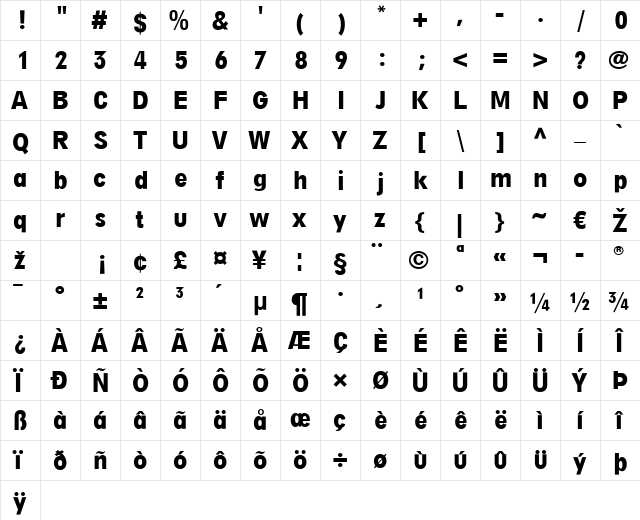
DigiGrotesk LT BoldCondensed Regular Font Preview
Design Context for DigiGrotesk LT BoldCondensed Typeface
DigiGrotesk LT BoldCondensed takes a clean, functional approach — its unadorned letterforms prioritise legibility and work reliably across screen and print environments. The heavy weight commands attention and anchors typographic hierarchies. The condensed width makes it efficient for tight spaces without sacrificing legibility.
A strong choice for UI design, app interfaces, bold signage, and corporate brand systems.
Font Pairing: Use DigiGrotesk LT BoldCondensed for headlines alongside a lighter-weight sans or serif for body copy to establish clear visual hierarchy.
Pro Tip: Try DigiGrotesk LT BoldCondensed in all-caps with moderate tracking for navigation and label copy — it performs well in systematic UI contexts.